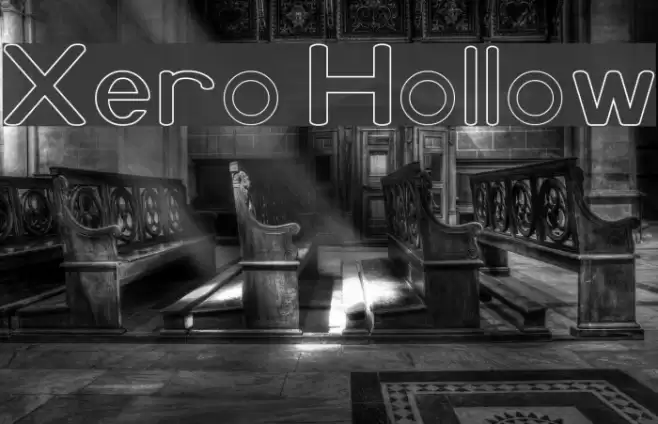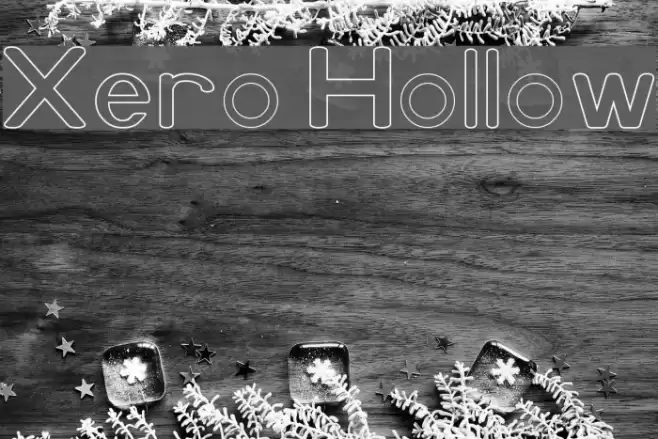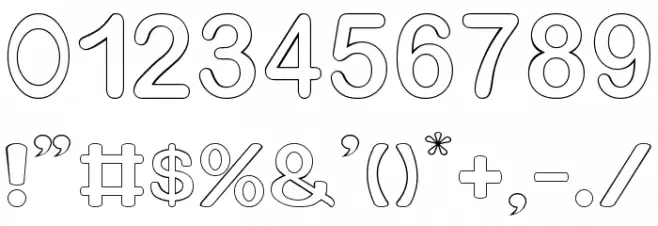
Xero Hollow Font
Xero Hollow Description
This font features a hollow, outlined style that gives it a modern and airy appearance. The characters are sans-serif, with clean and smooth lines that create a sense of openness and clarity. The uppercase and lowercase letters maintain a consistent width, contributing to a balanced and harmonious look. The numerals and special characters follow the same design principles, ensuring uniformity across all glyphs. This font's unique hollow design makes it stand out, offering a fresh and contemporary feel suitable for various creative applications.
A modern, hollow sans-serif font with clean, outlined characters from Uncategorized fonts.